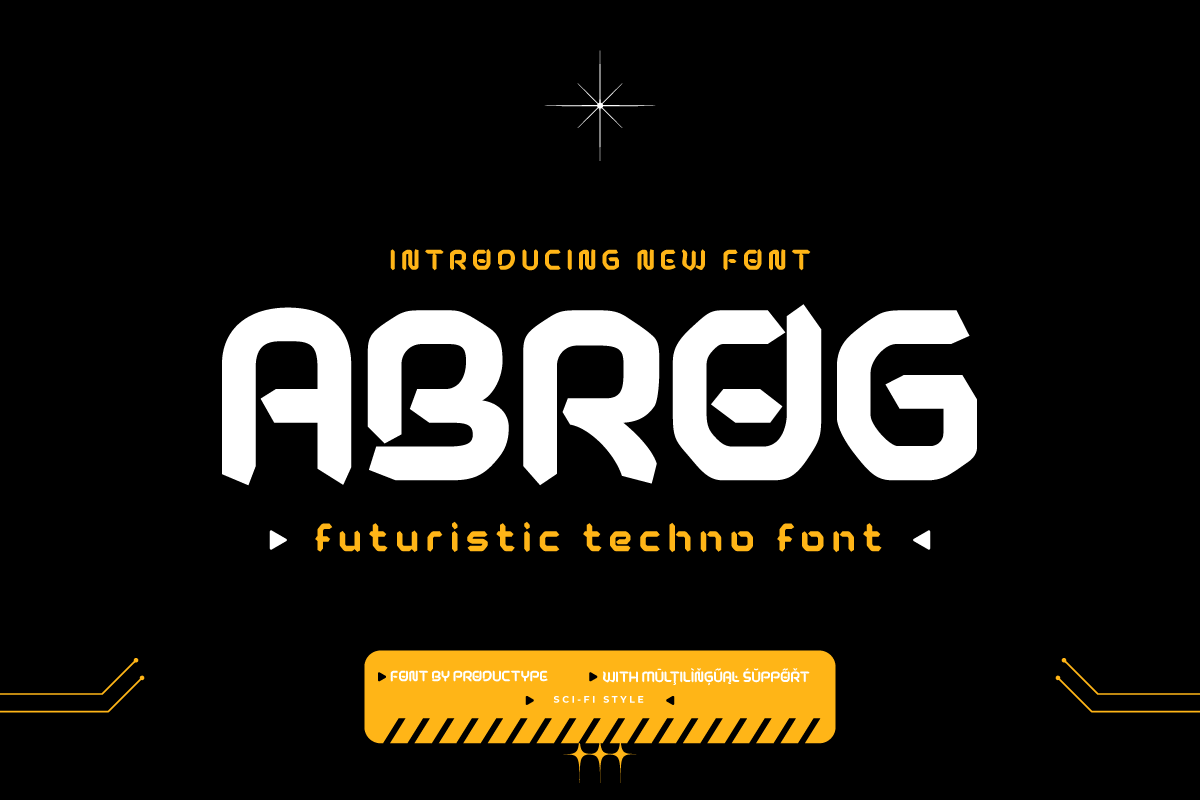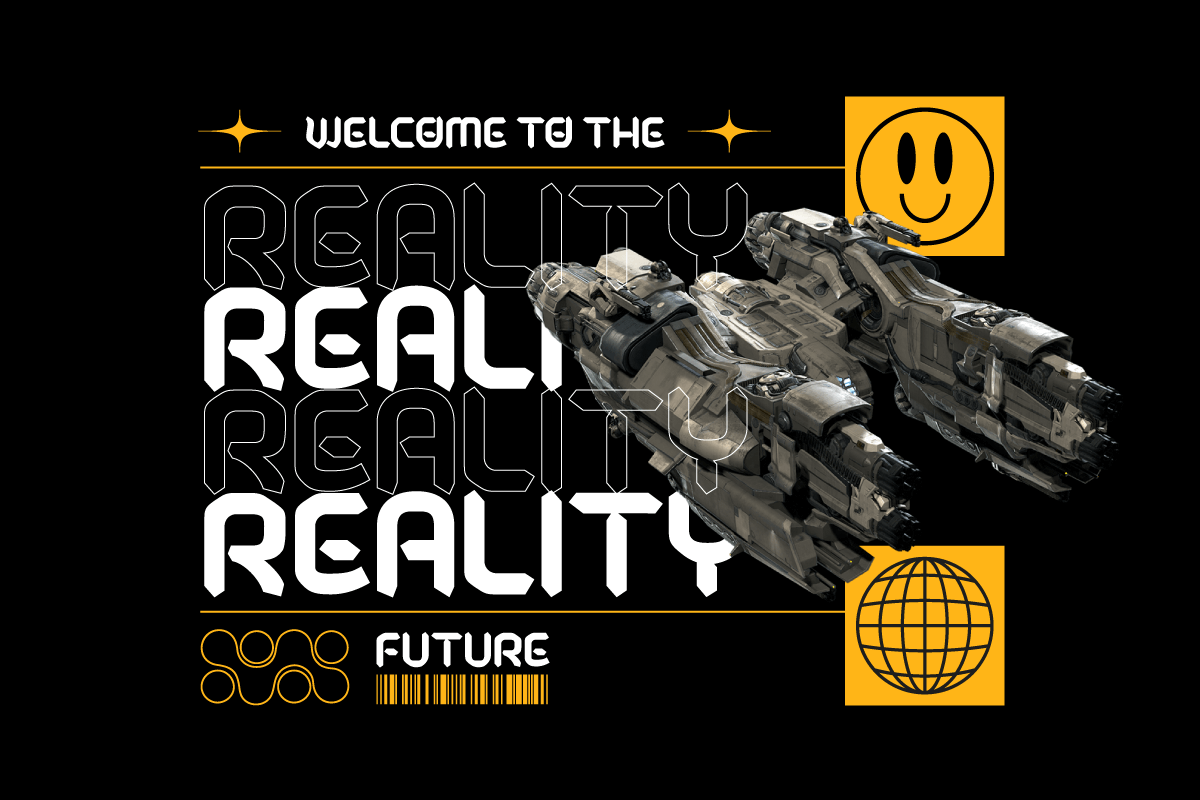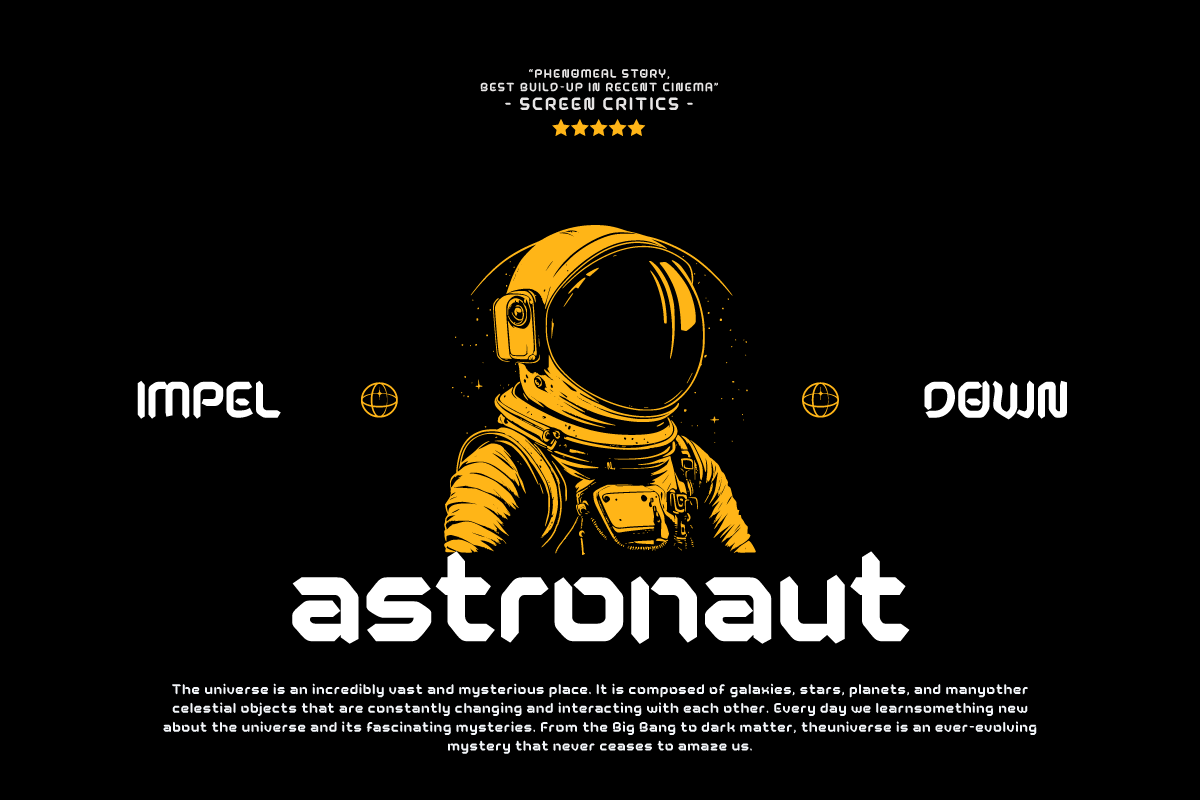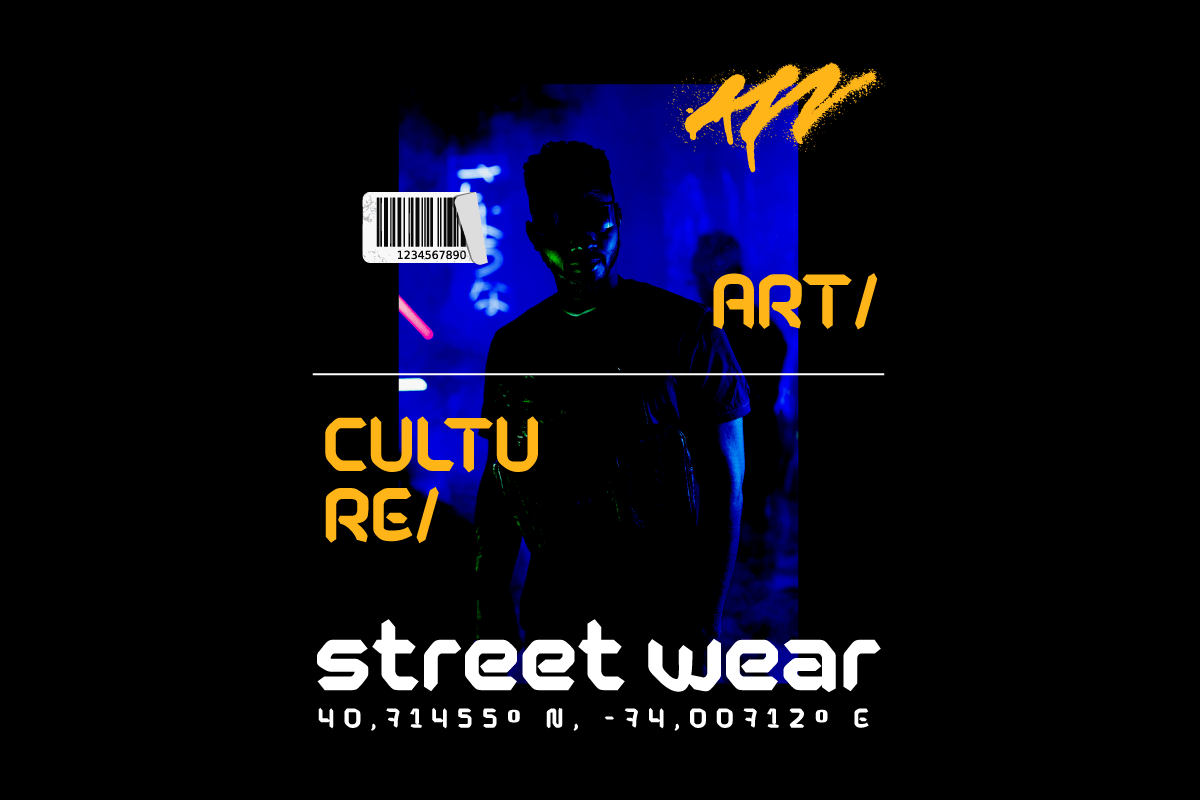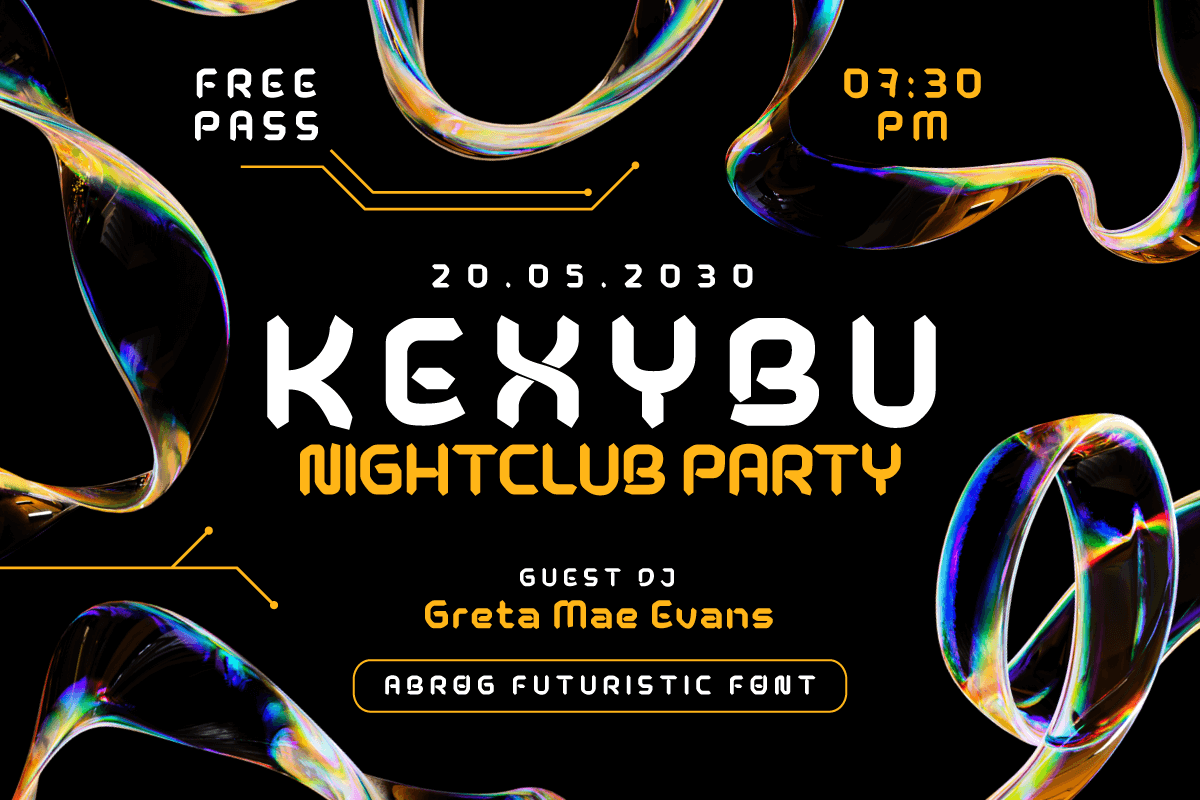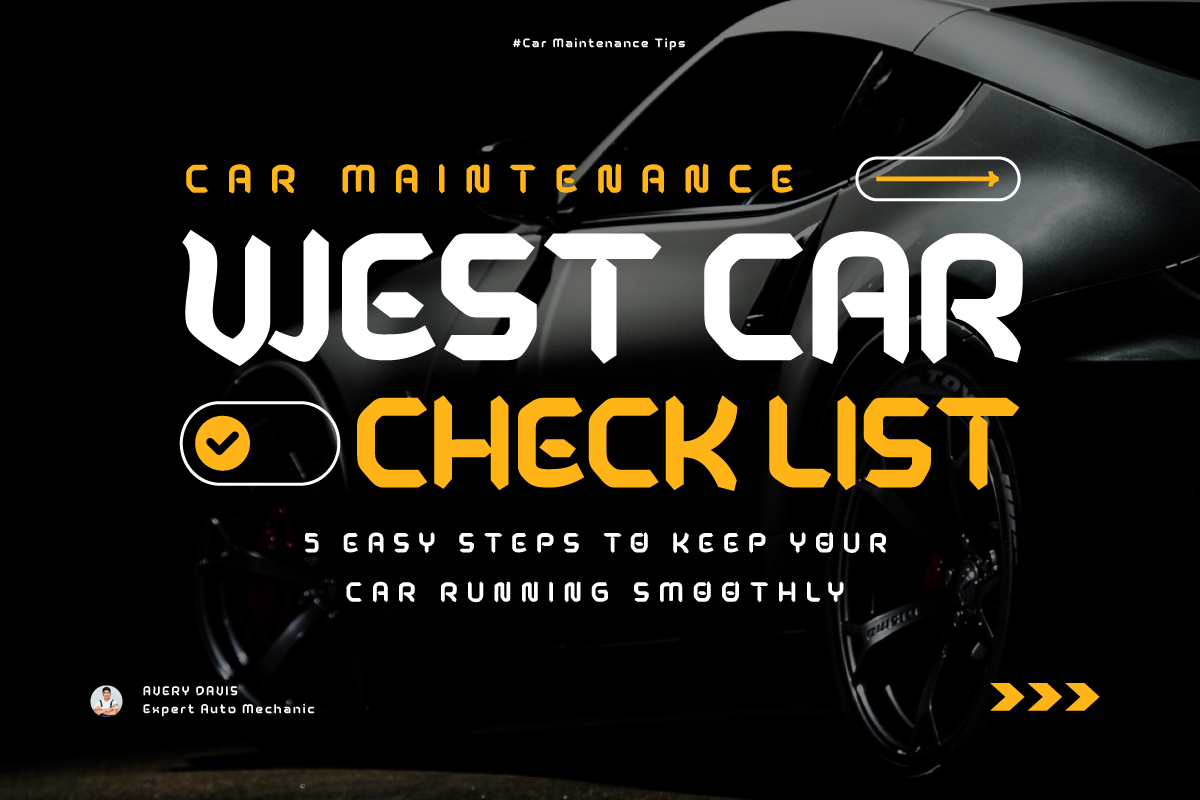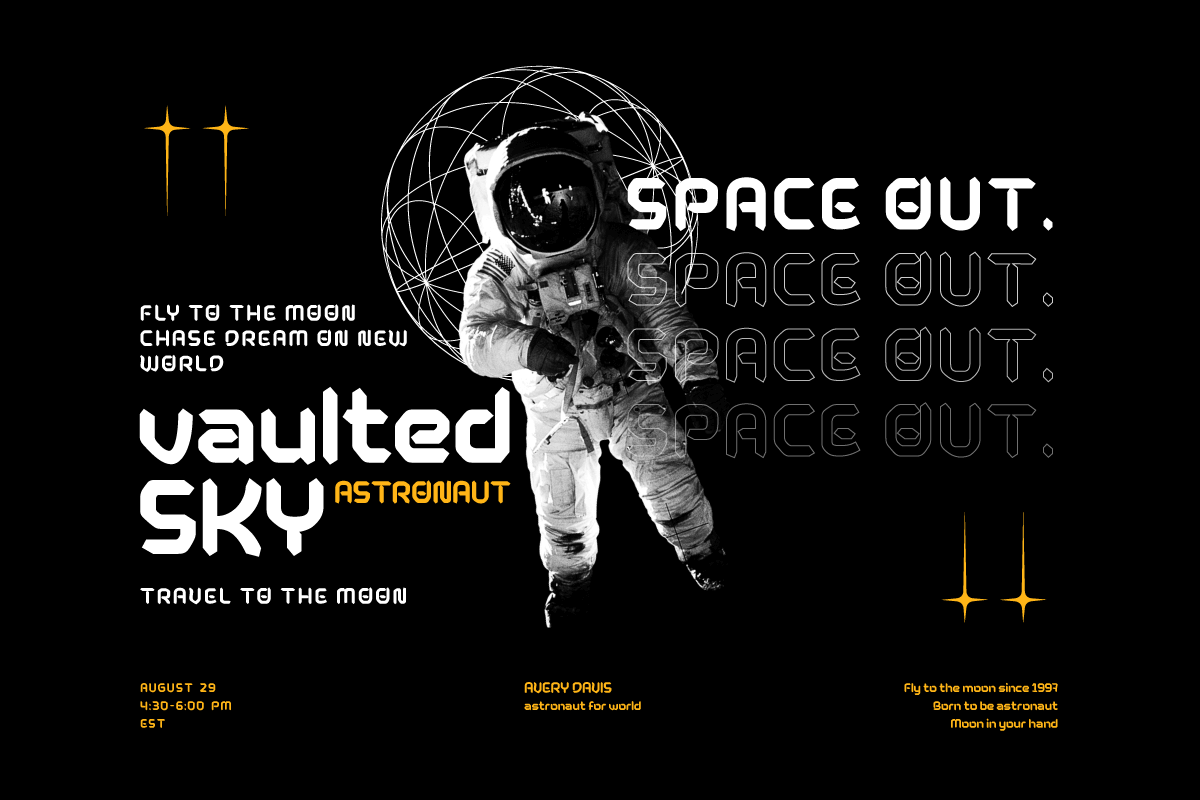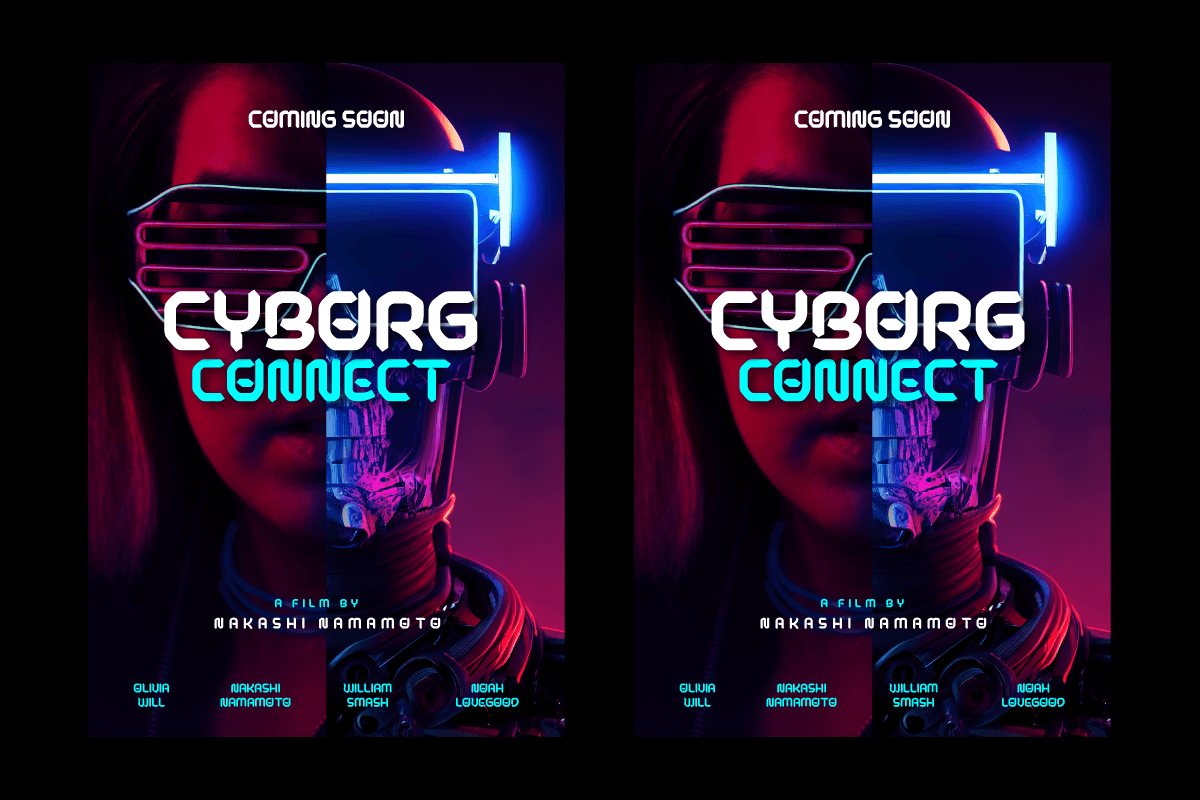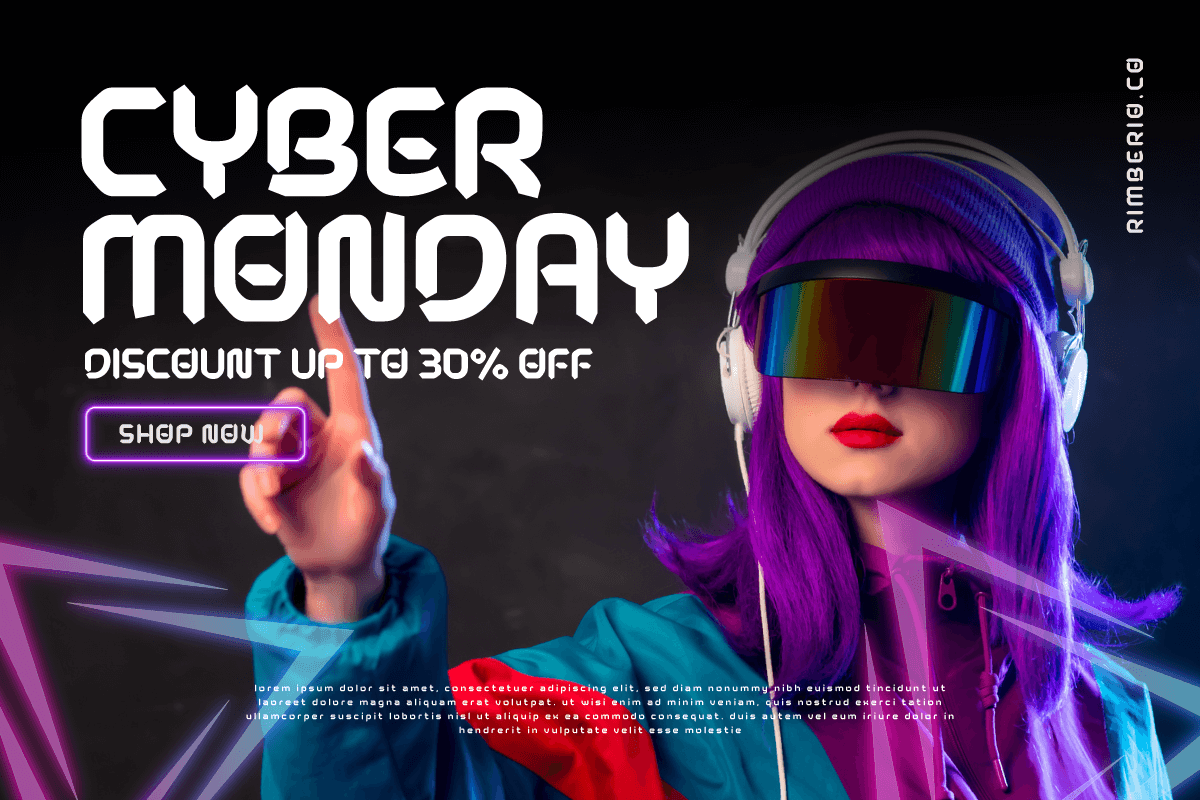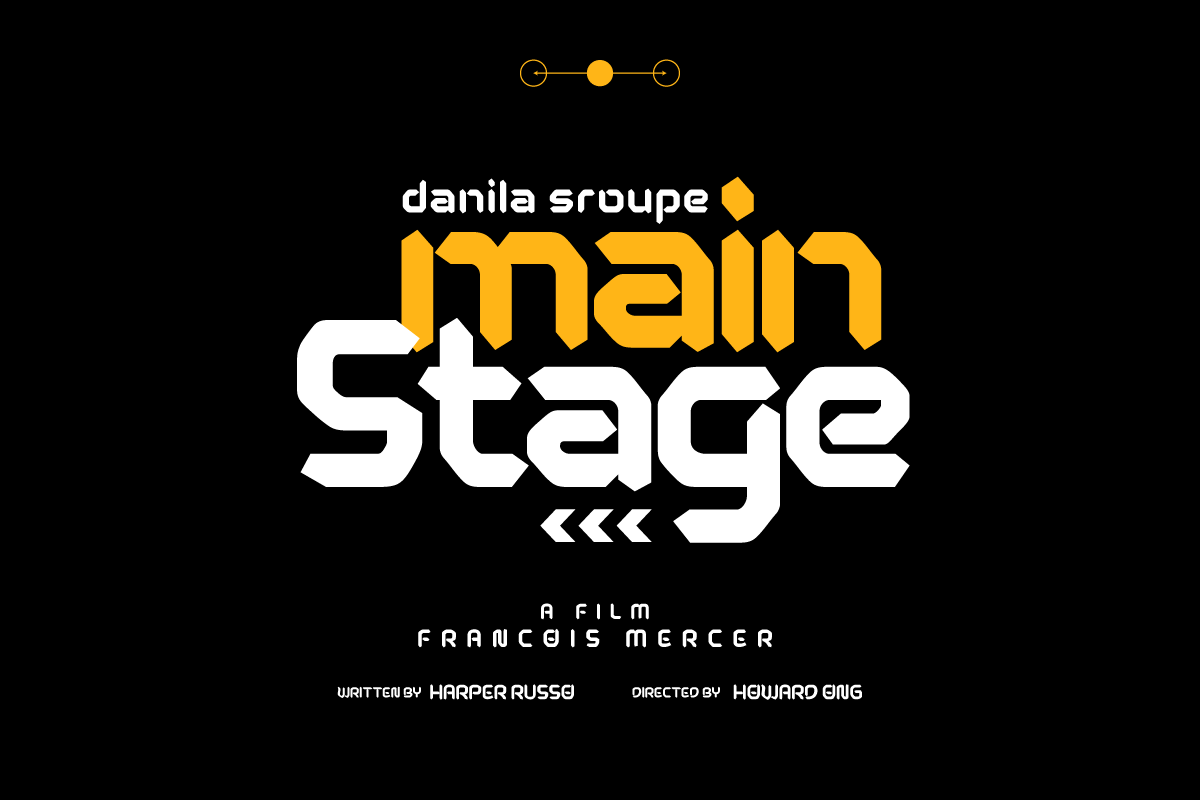
Abrog – Futuristic Tech Font
Meet Abrog, a futuristic technology font designed to add a sophisticated and inspiring touch to any of your designs.
Abrog combines elements of modern technology with the sophistication of design, creating a font that is not only aesthetic but also exudes sustainability. Each character in Abrog reflects a future concept, bringing a sense of cutting-edge technology to your work.